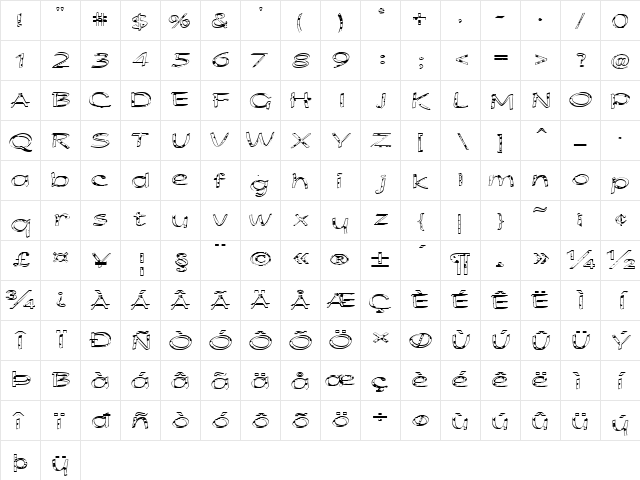
FZ HAND 21 SPOTTED EX Normal
Design Context for FZ HAND 21 SPOTTED EX
FZ HAND 21 SPOTTED EX flows with the natural rhythm of handwritten lettering, making it ideal for designs that call for warmth and personal expression.
Font Pairing: Combine FZ HAND 21 SPOTTED EX with a simple geometric sans for maximum contrast - the tension between flowing curves and clean structure is a classic typographic pairing.
Pro Tip: Use FZ HAND 21 SPOTTED EX for short runs of text - names, titles, or taglines. Extended body copy in script faces tires the eye quickly.